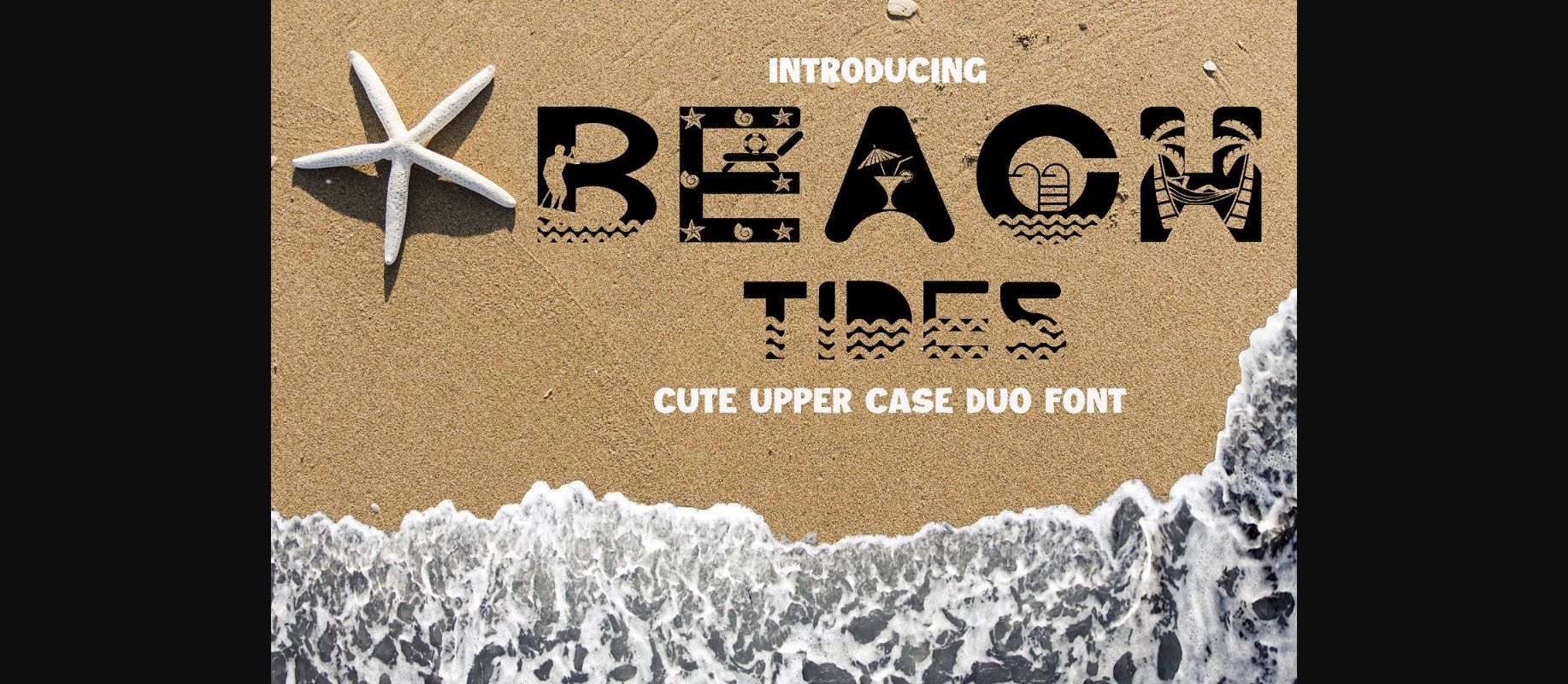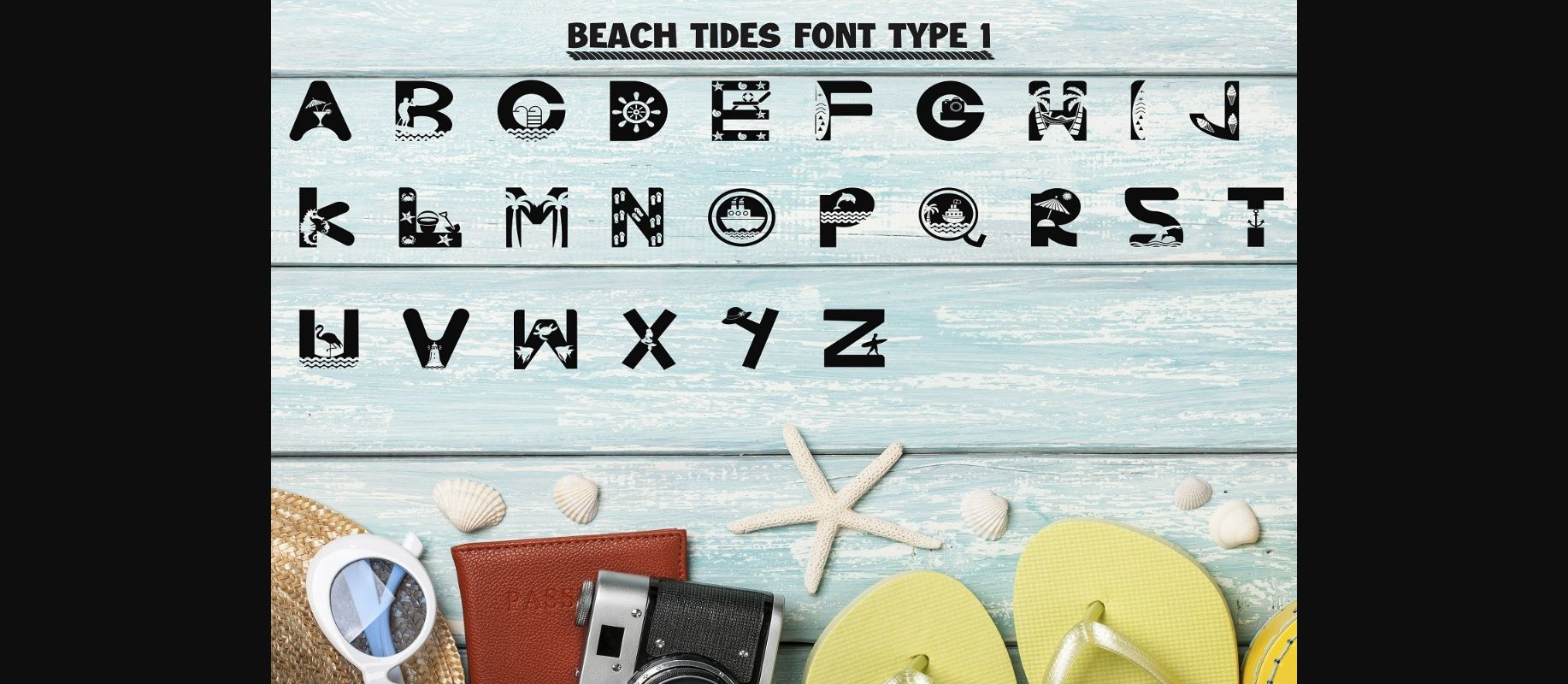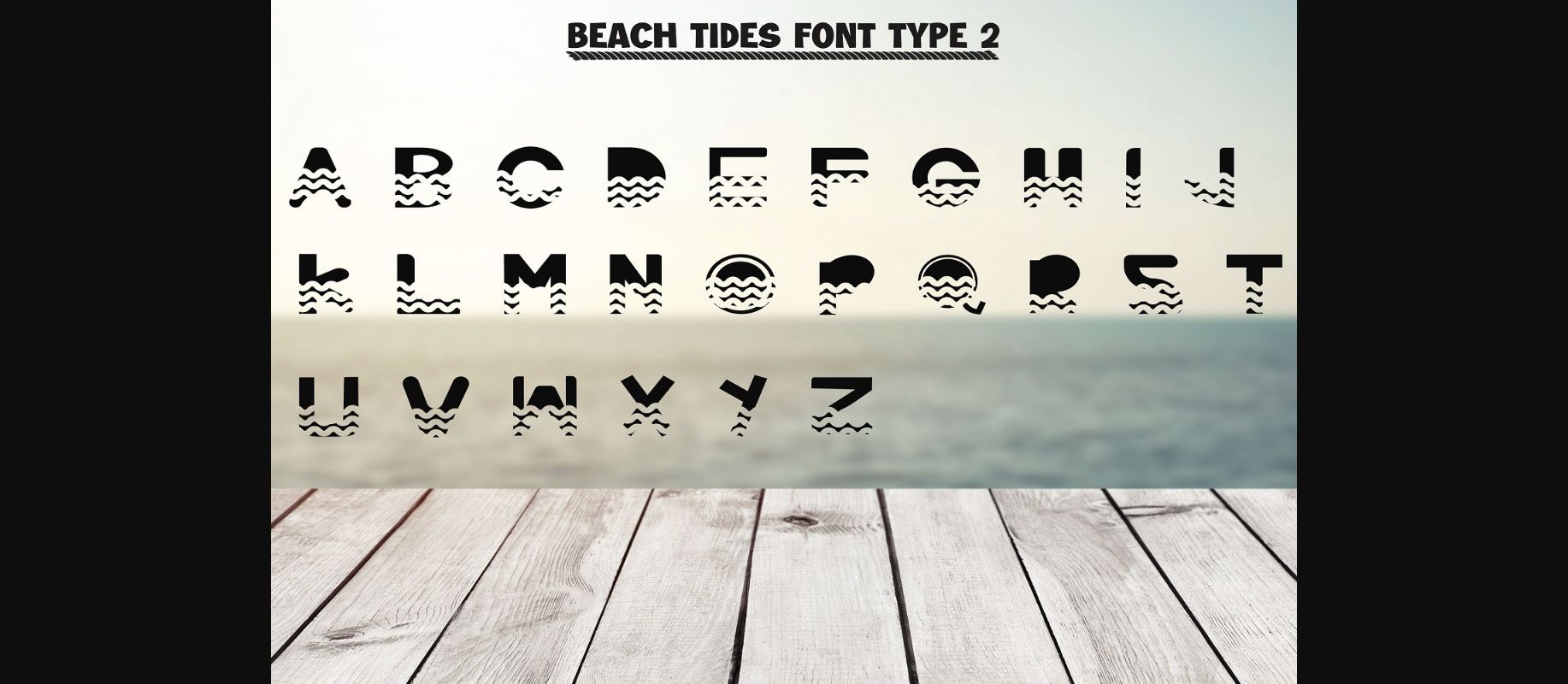
Beach Tides Font
About Beach Tides Font
Beach Tides is a unique, modern and fun decorative font. This original look will appeal to a wide range of crafty ideas, from letterheads and titles, to stationery.